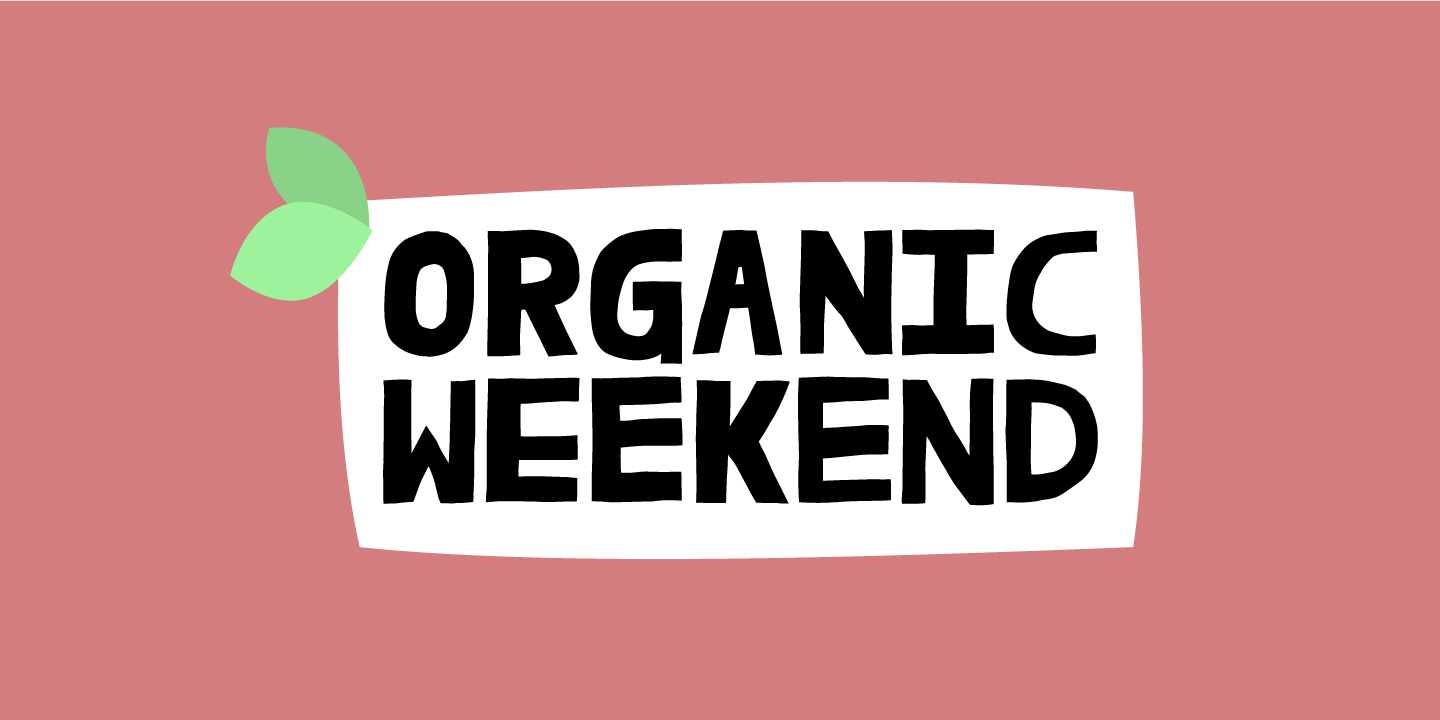
Organic Weekend Font is ideal for farmers market signage, organic food branding, eco-friendly lifestyle brands, natural wellness centers, sustainable product packaging, weekend retreat promotions, outdoor adventure companies, healthy restaurant menus, environmental awareness campaigns, artisan craft businesses, natural beauty products, and wholesome family-oriented marketing.
This font is exciting because it captures the refreshing simplicity and natural joy of unplugging from modern stress to embrace the wholesome pleasures of organic living and peaceful weekend escapes, featuring gently flowing letterforms that breathe with the same relaxed rhythm and authentic warmth found in sun-dappled farmers markets, cozy cabin retreats, and lazy Saturday mornings spent savoring life's simple, natural pleasures. The earthy character design embodies both the nutritious goodness of organic food and the restorative power of weekend relaxation, creating typography that feels like a deep breath of fresh country air. Each letter radiates the kind of genuine contentment and healthy vitality that comes from choosing natural over artificial and weekend peace over weekday pressure.
The Organic Weekend Font family includes regular weight with complete character sets featuring nature-inspired numerals, relaxed punctuation marks, and decorative elements reminiscent of garden growth, weekend leisure activities, and organic farming symbols. Advanced versions may offer additional stylistic variants with enhanced natural effects, alternate characters that create flowing organic connections, and weekend-themed ornaments that celebrate the beauty of natural living and peaceful relaxation.
Whether you're developing organic lifestyle branding, creating weekend retreat marketing, or designing natural wellness content, Organic Weekend Font Free Download provides the wholesome authenticity and relaxed natural charm your project needs to connect with audiences seeking genuine quality and peaceful simplicity in their busy lives. This typeface transforms ordinary text into inviting messages that celebrate the wisdom of choosing organic values and weekend restoration over artificial stress and constant pressure. The font's natural character makes it perfect for brands that promote healthy living and life balance. Organic lifestyle enthusiasts and weekend wellness advocates will love how this font brings authentic natural peace to their work with its genuinely wholesome and refreshingly relaxed character that honors the beauty of organic weekend living.